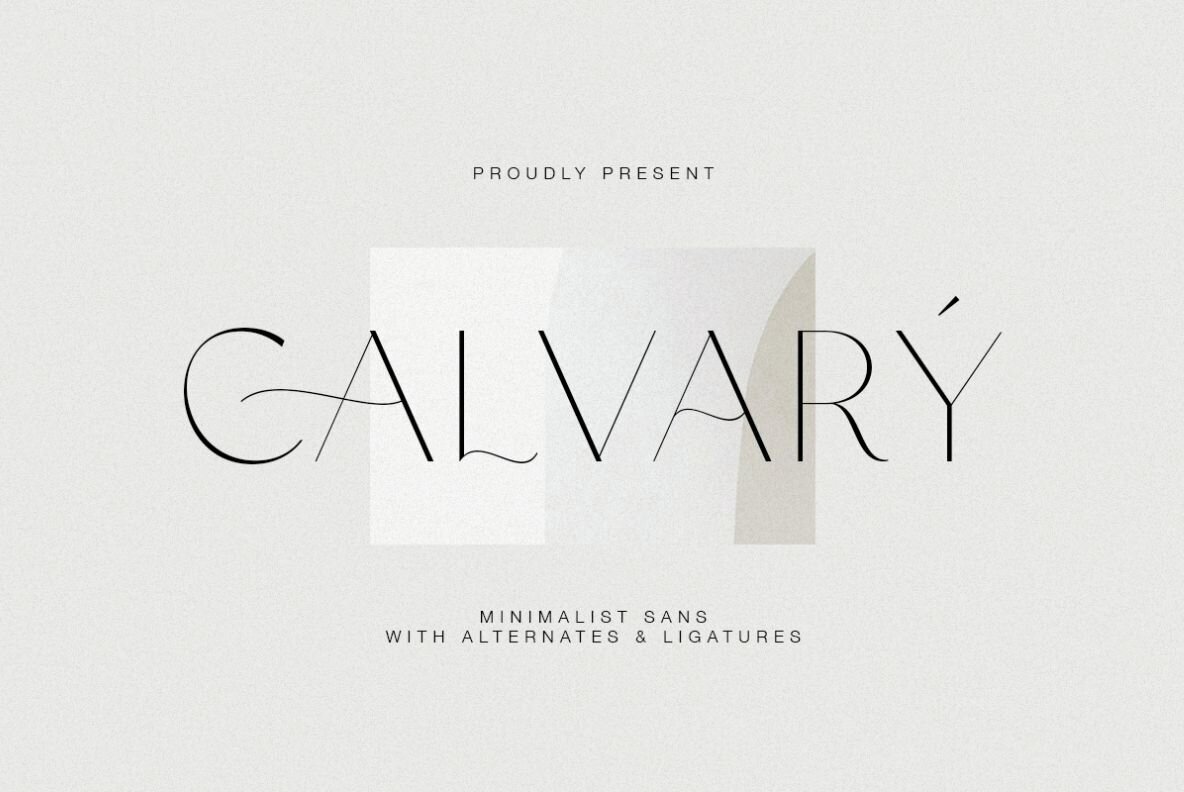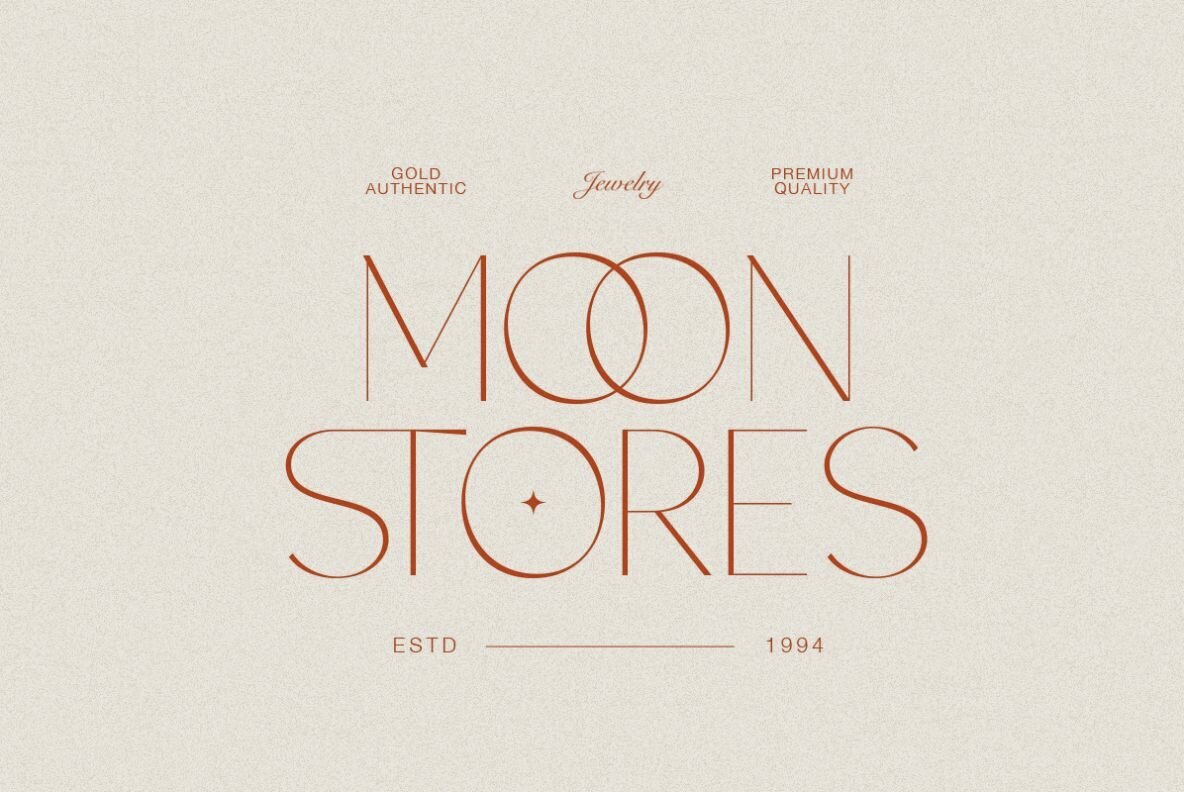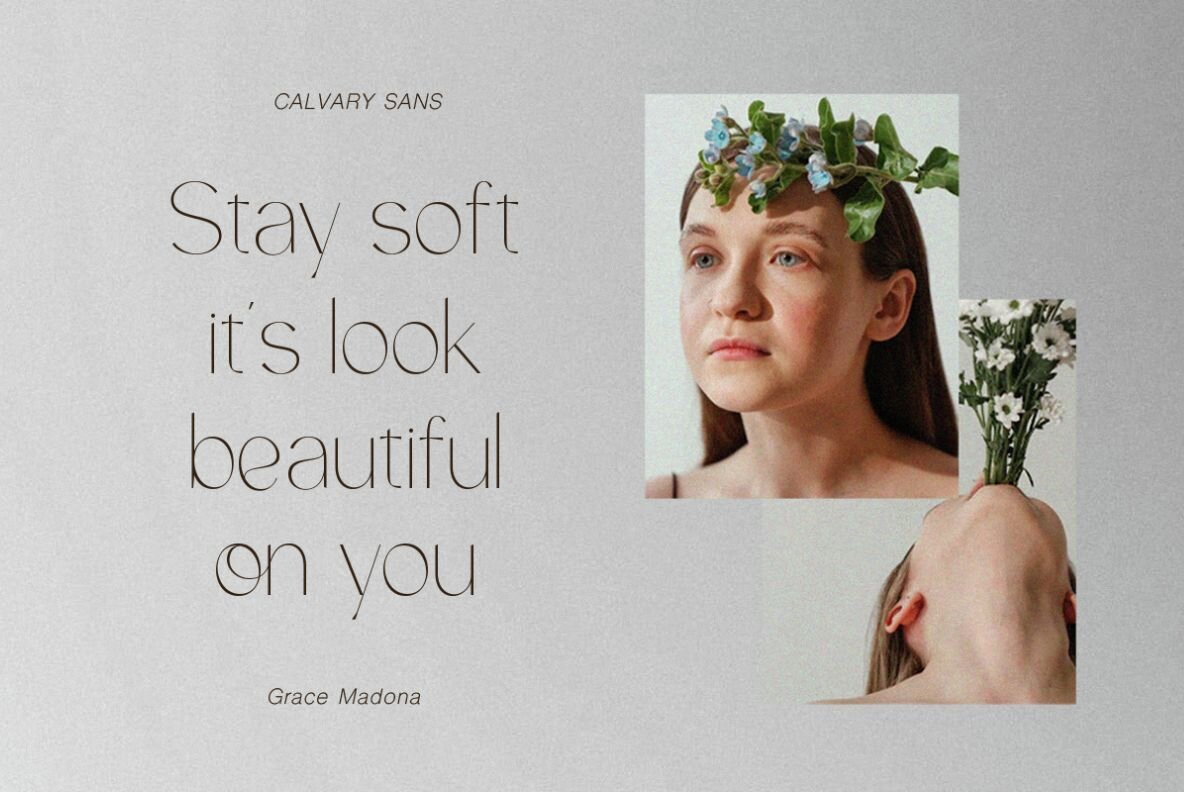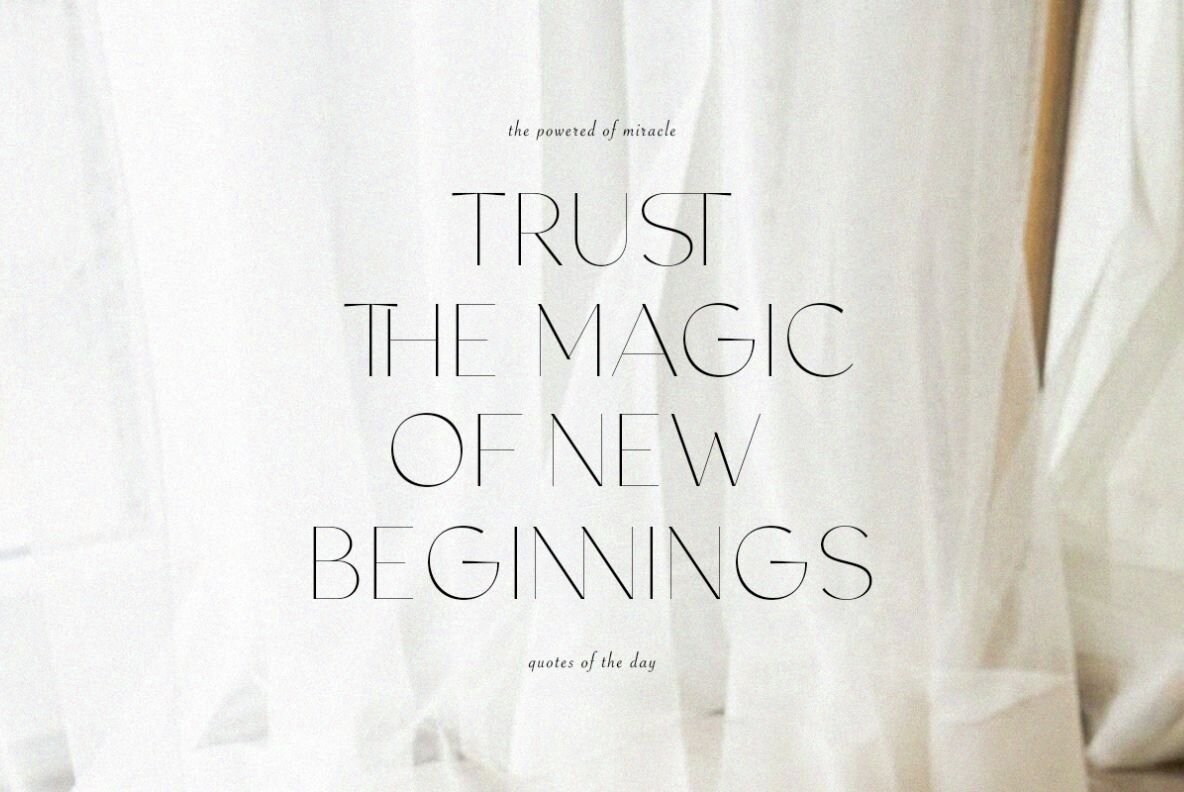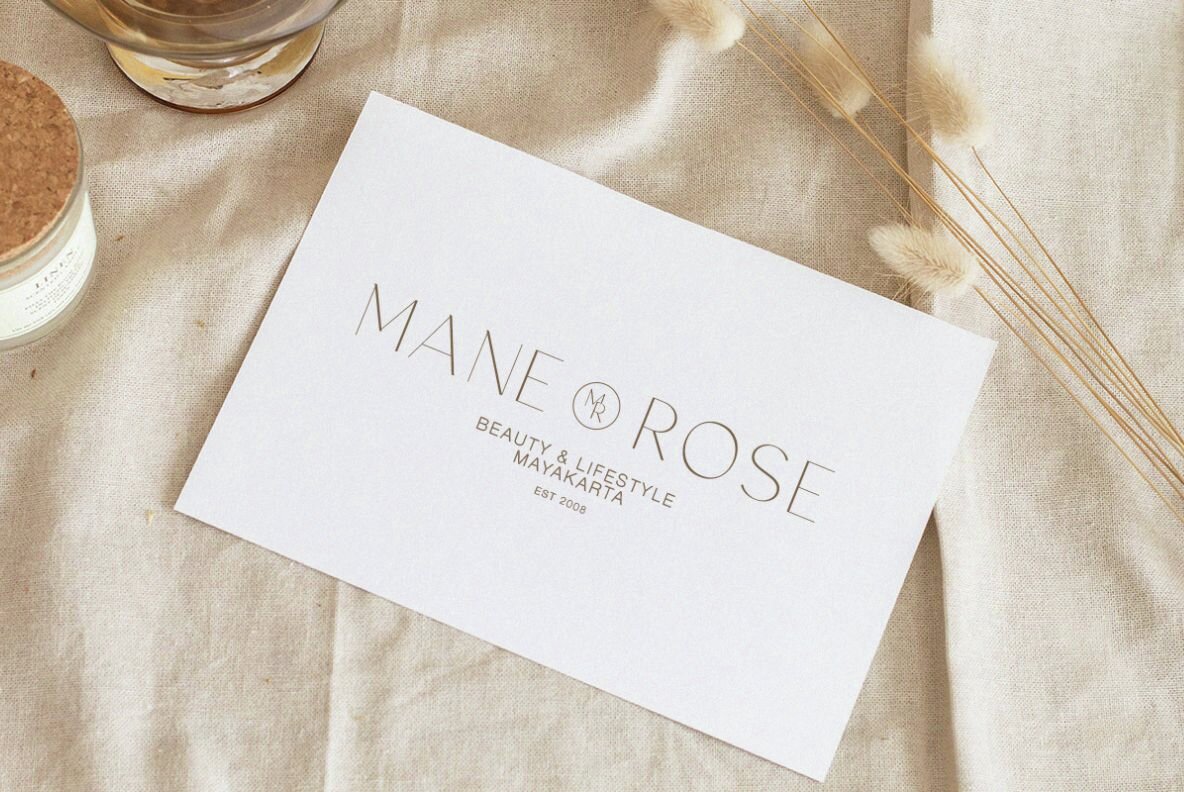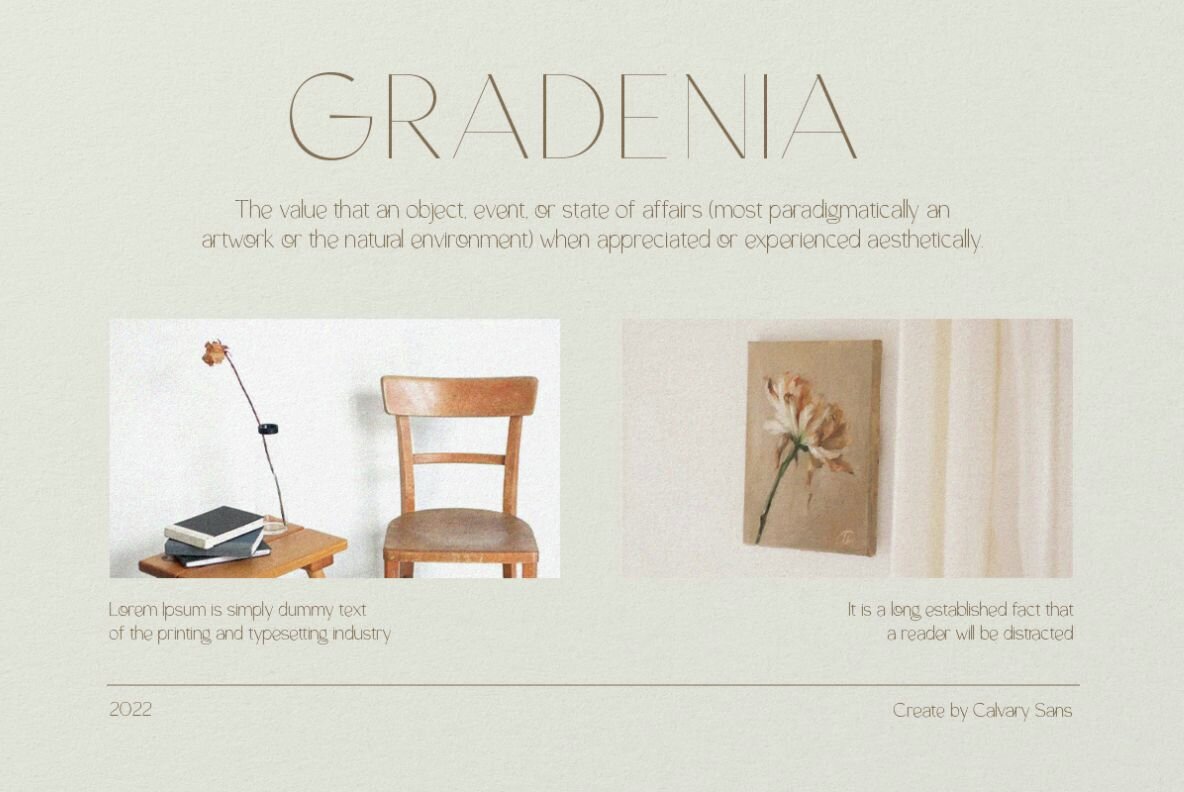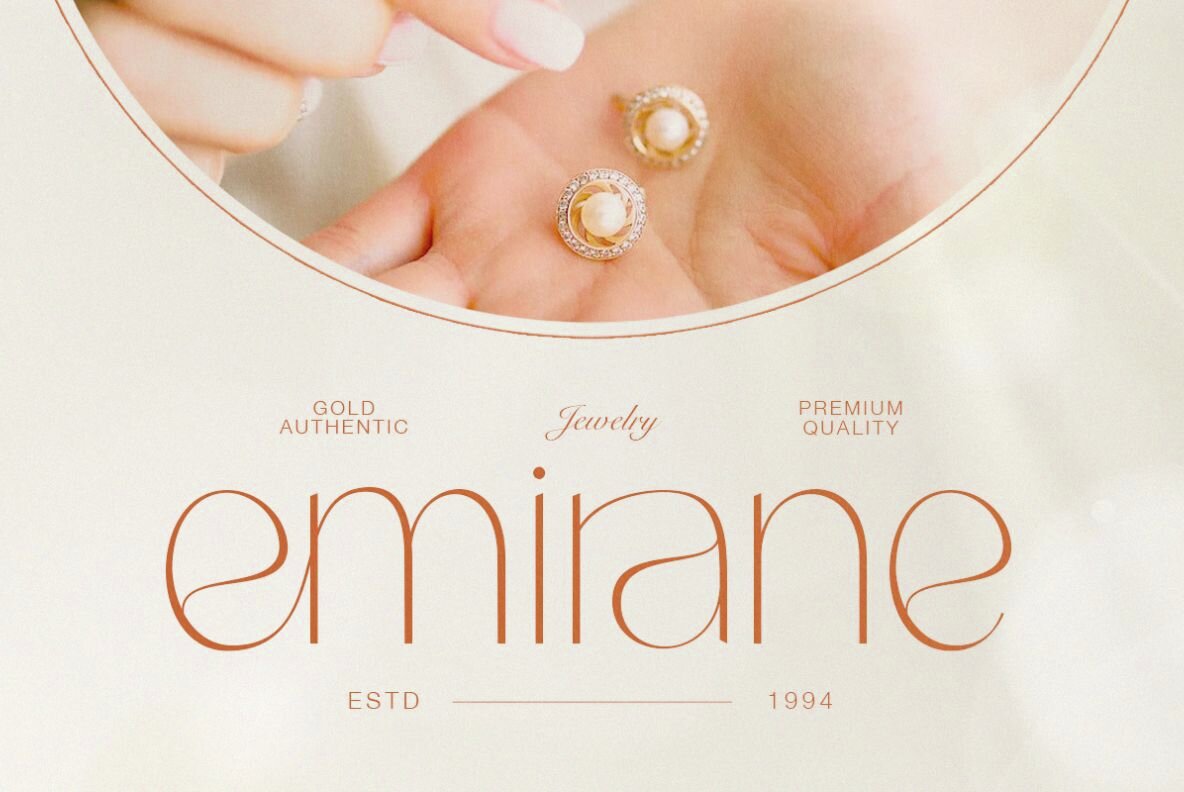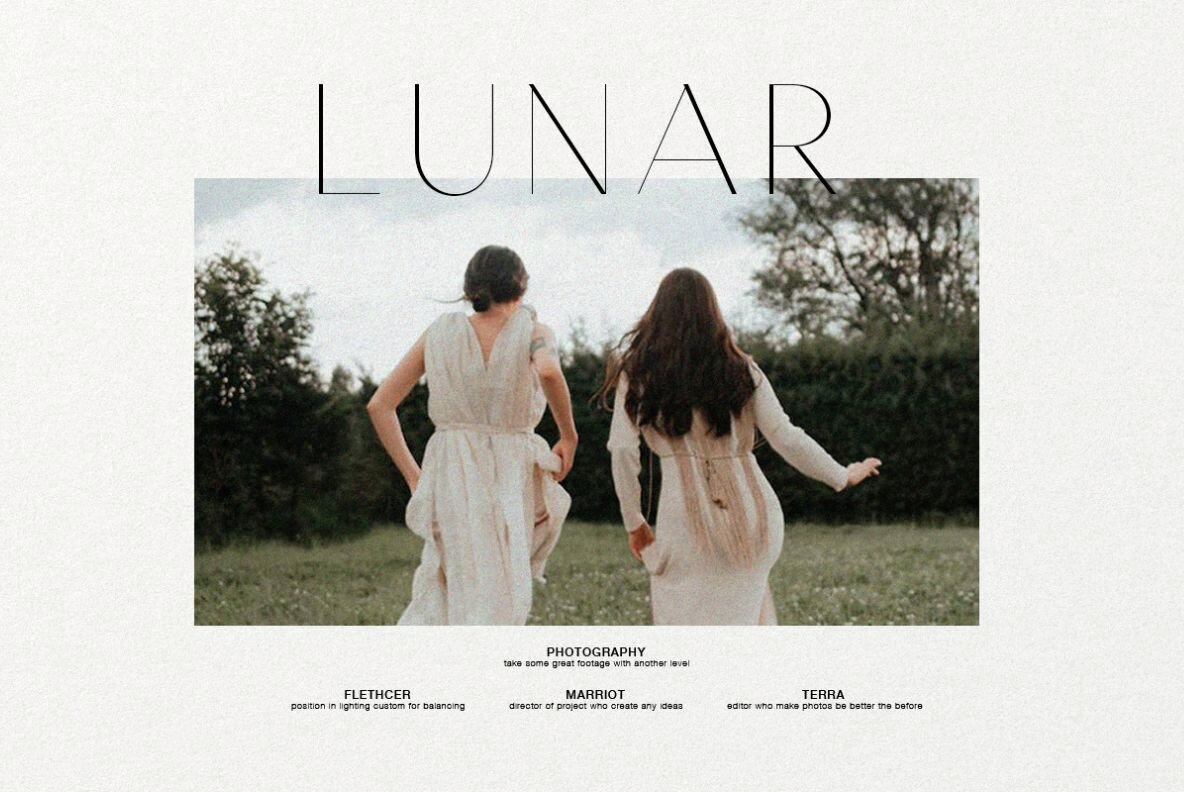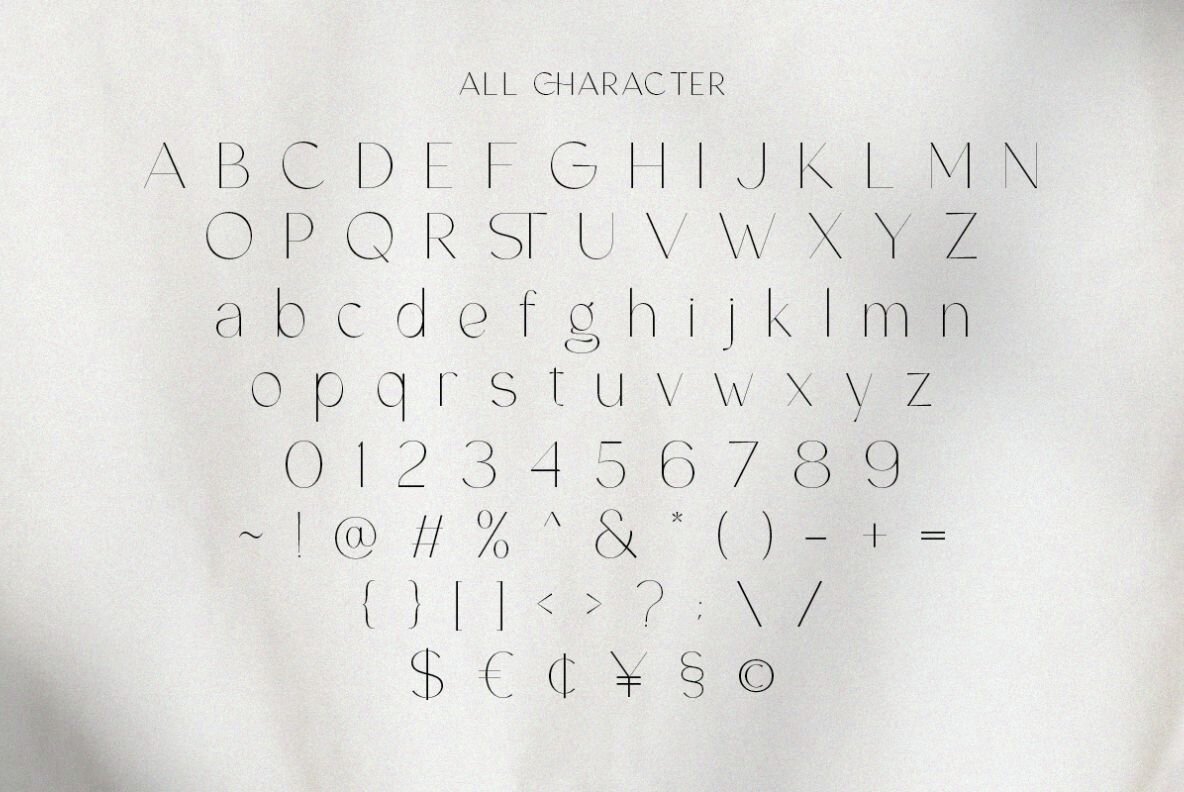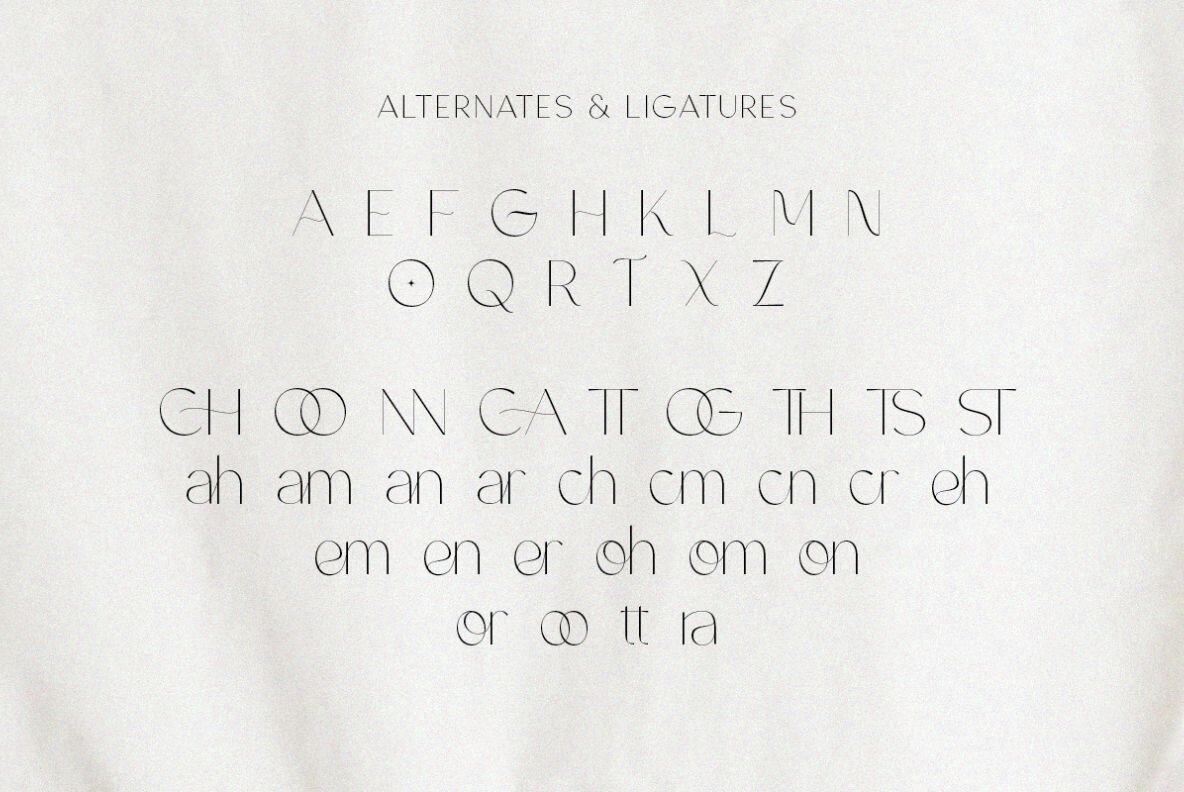
Calvary Font
Calvary Regular
Introducing Calvary—a refined and luxurious sans-serif typeface that exudes elegance and versatility. Perfect for projects demanding a touch of sophistication, this font offers a beautifully crafted set of ligatures and alternates. Use it to create stunning visuals that maintain a minimalistic yet captivating appeal. Maximize the impact by combining its regular base with intricate ligatures, ensuring your work stands out with grace and poise.Calvary Font